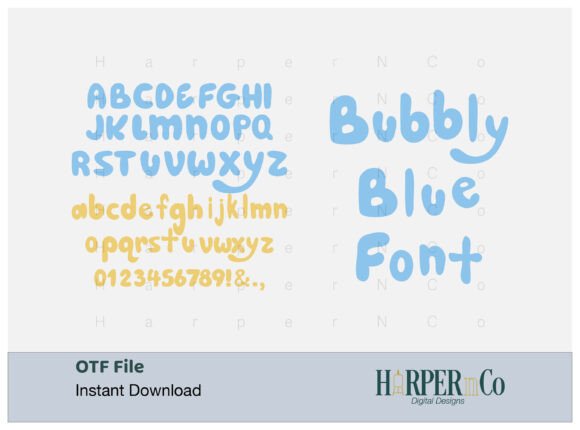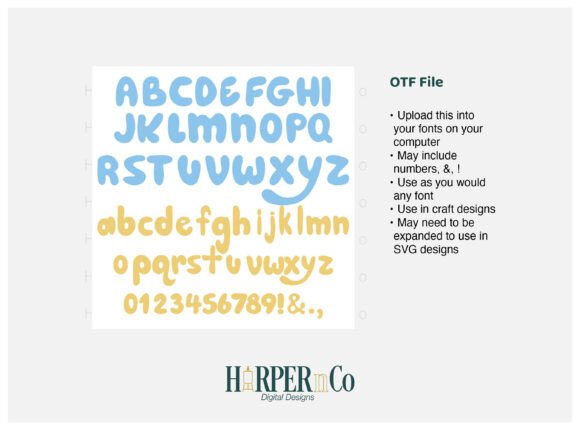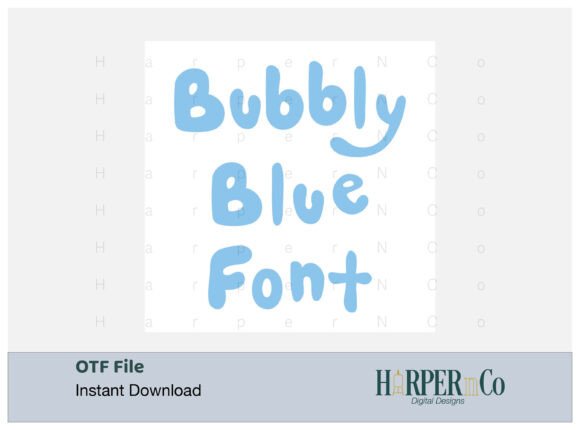
Bubbly Blue Font: A Playful Typeface Inspired by a Beloved Blue Dog
Are you tired of using the same old fonts in your designs? Look no further! Introducing the Bubbly Blue Font, a hand-drawn bubble style typeface inspired by a beloved blue dog. This fun and playful font is perfect for designers and crafters looking to add a touch of whimsy to their projects.
The Inspiration Behind Bubbly Blue Font
The Bubbly Blue Font is inspired by a beloved blue dog that has captured the hearts of many. The font’s creator wanted to bring the playful and cheerful spirit of this blue dog to life in a typeface that would make designs stand out. And so, the Bubbly Blue Font was born.
What Makes Bubbly Blue Font Special?
So, what sets the Bubbly Blue Font apart from other fonts out there? Here are a few things that make it special:
- Hand-drawn bubble style: The Bubbly Blue Font features a unique hand-drawn bubble style that gives it a playful and informal feel.
- Inspired by a beloved blue dog: The font’s inspiration from a beloved blue dog makes it a one-of-a-kind typeface that’s sure to bring a smile to people’s faces.
- Easily customizable: By default, the font appears in black, but you can easily change the color to match your design’s color scheme.
Using Bubbly Blue Font in Your Designs
To change the color of the font, simply select the text and adjust the color settings like you would with any other font. You can use the font in a variety of design projects, including:
- Digital art: Add a playful touch to your digital art with the Bubbly Blue Font.
- Crafting projects: Use the font to create fun and colorful titles for your crafting projects, such as scrapbooking or card making.
- Sign making: Create eye-catching signs with the Bubbly Blue Font that’s sure to grab attention.
Tips for Getting the Most Out of Bubbly Blue Font
Here are a few tips for getting the most out of the Bubbly Blue Font:
- Experiment with different colors: While the font appears in black by default, you can easily change the color to match your design’s color scheme. Experiment with different colors to find the one that works best for your project.
- Use it with other playful fonts: The Bubbly Blue Font pairs well with other playful fonts. Try using it with a bold font for a fun and playful contrast.
- Don’t be afraid to get creative: The Bubbly Blue Font is a versatile typeface that can be used in a variety of design projects. Don’t be afraid to get creative and try new things!
The Bubbly Blue Font is a fun and playful typeface that’s perfect for designers and crafters looking to add a touch of whimsy to their projects. With its hand-drawn bubble style and inspiration from a beloved blue dog, this font is sure to bring a smile to people’s faces. So why not give it a try? Download the Bubbly Blue Font today and start creating fun and playful designs that are sure to stand out!